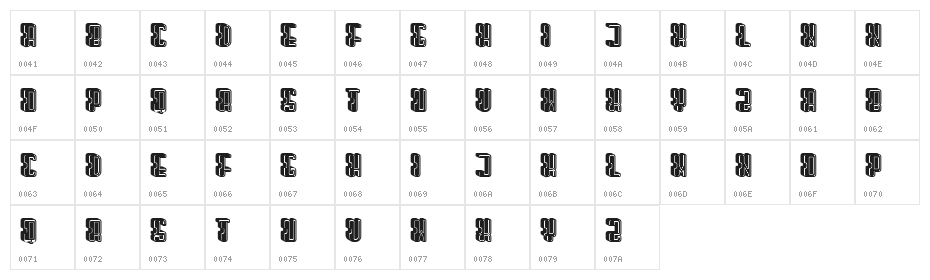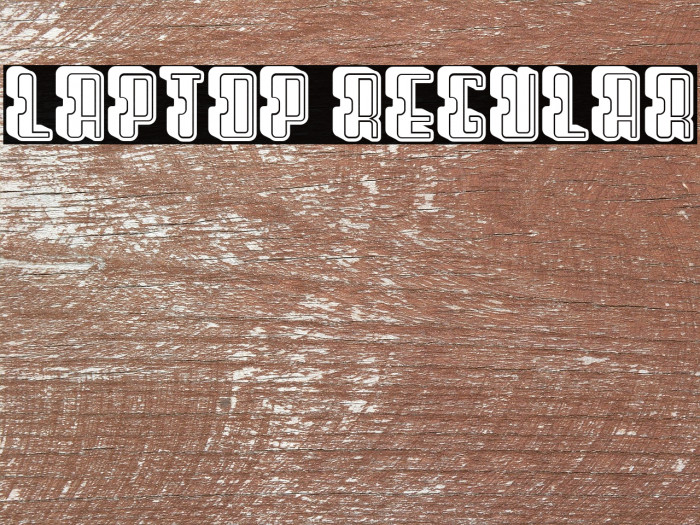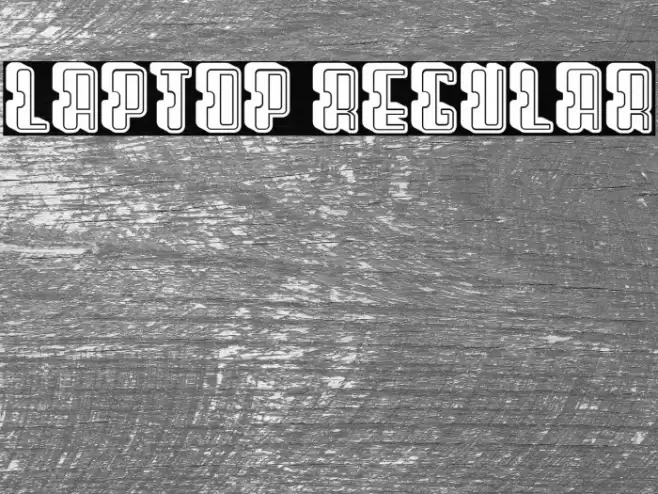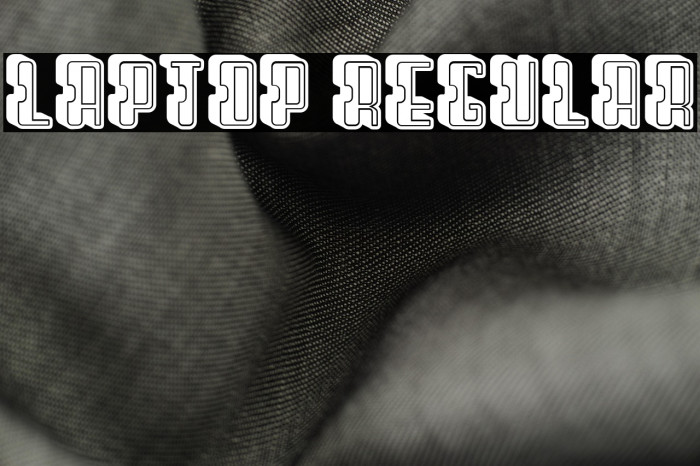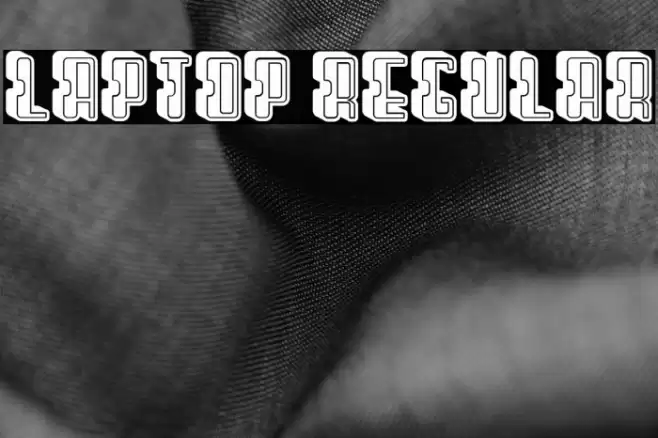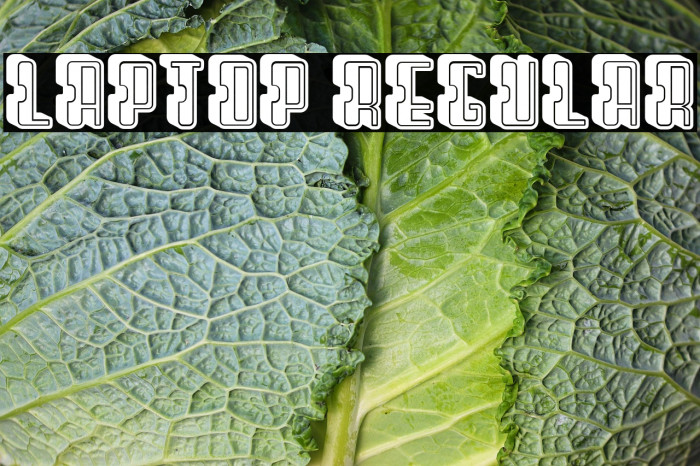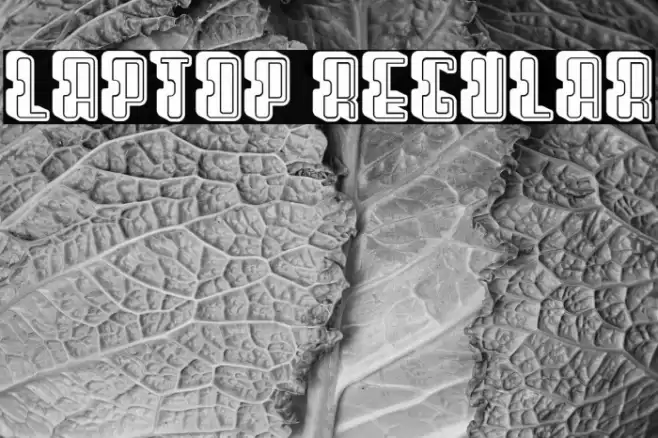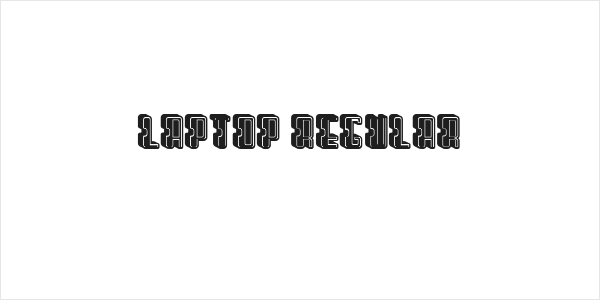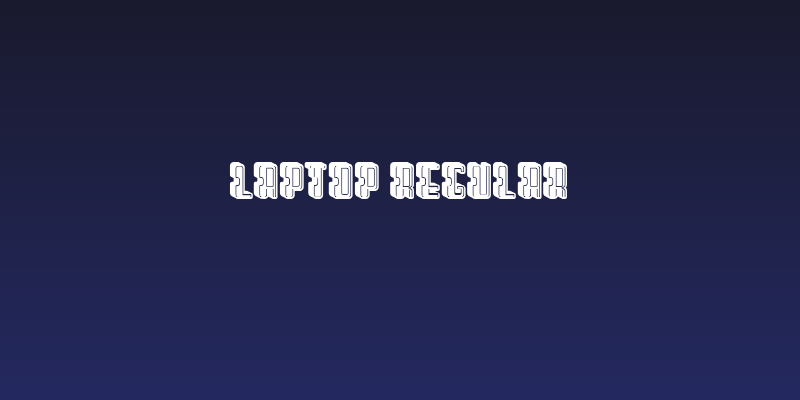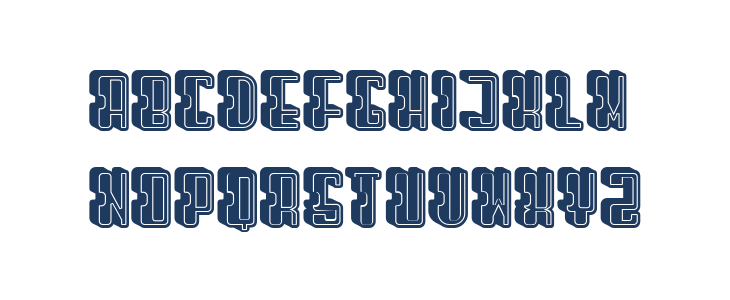
Laptop Regular Font
Laptop Regular Description
This font features a bold, geometric design with a distinct outline that gives it a three-dimensional appearance. Each character is constructed with thick, block-like shapes and sharp angles, creating a futuristic and industrial feel. The uppercase letters are particularly striking, with a uniform height and width that contribute to a cohesive look. The lowercase letters maintain the same boldness, ensuring readability while preserving the unique style. The numbers and special characters are equally bold and consistent, making this font versatile for various applications. Its strong presence and unique design make it suitable for projects that require a modern and eye-catching typeface.
| Proposed Projects | Ideal for branding, posters, video game graphics, and any project needing a modern, industrial look. |